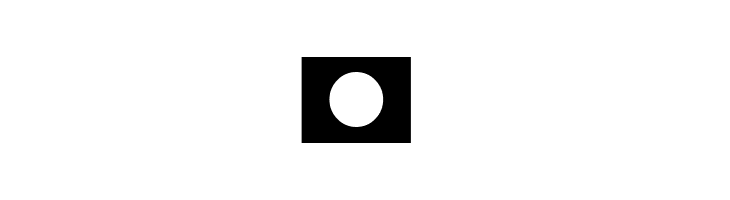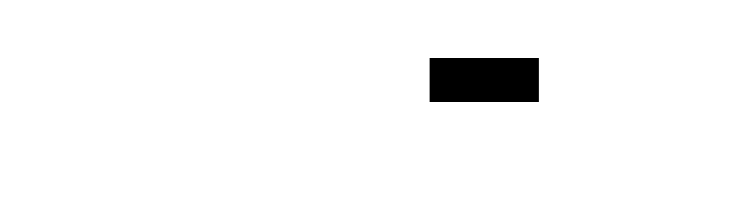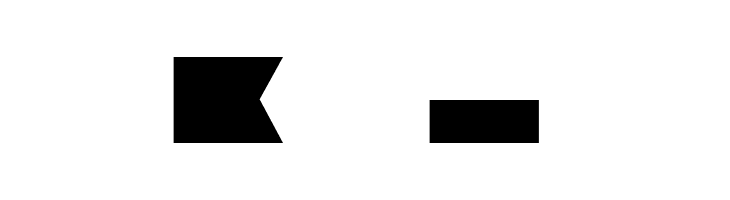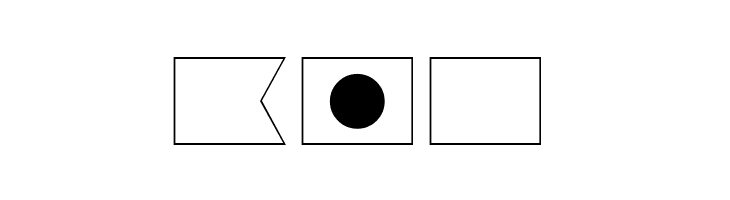
A bold, geometric set of symbols inspired by maritime signal flags.
A geometric, maritime-inspired design with bold, clear shapes.
A nautical-themed symbol set inspired by maritime flags, featuring bold geometric designs.
A decorative font inspired by maritime flags with bold geometric shapes.